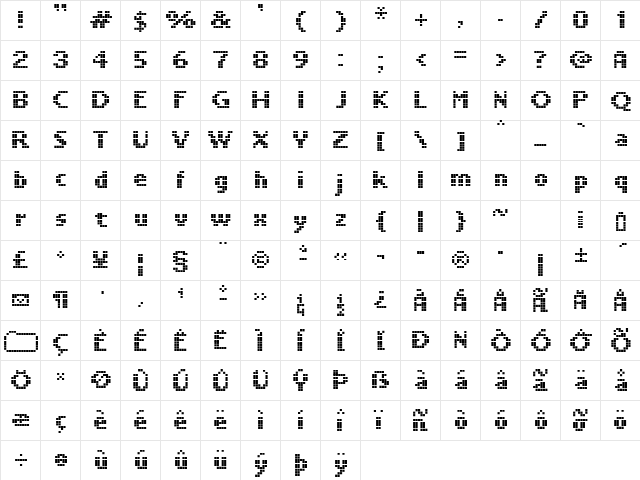
LLPixel Regular Font Preview
LLPixel Regular
LLPixel Regular Font Details
Design Context for LLPixel Typeface
LLPixel is rooted in pixel-grid construction, making it a natural fit for game UI, retro computing aesthetics, and digital nostalgia projects.
Well-suited to indie game interfaces, retro computing aesthetics, and pixel art-adjacent design work.
Pro Tip: Use LLPixel at sizes that align with its pixel grid for the sharpest rendering — scaling to non-integer multiples can introduce unwanted blur.